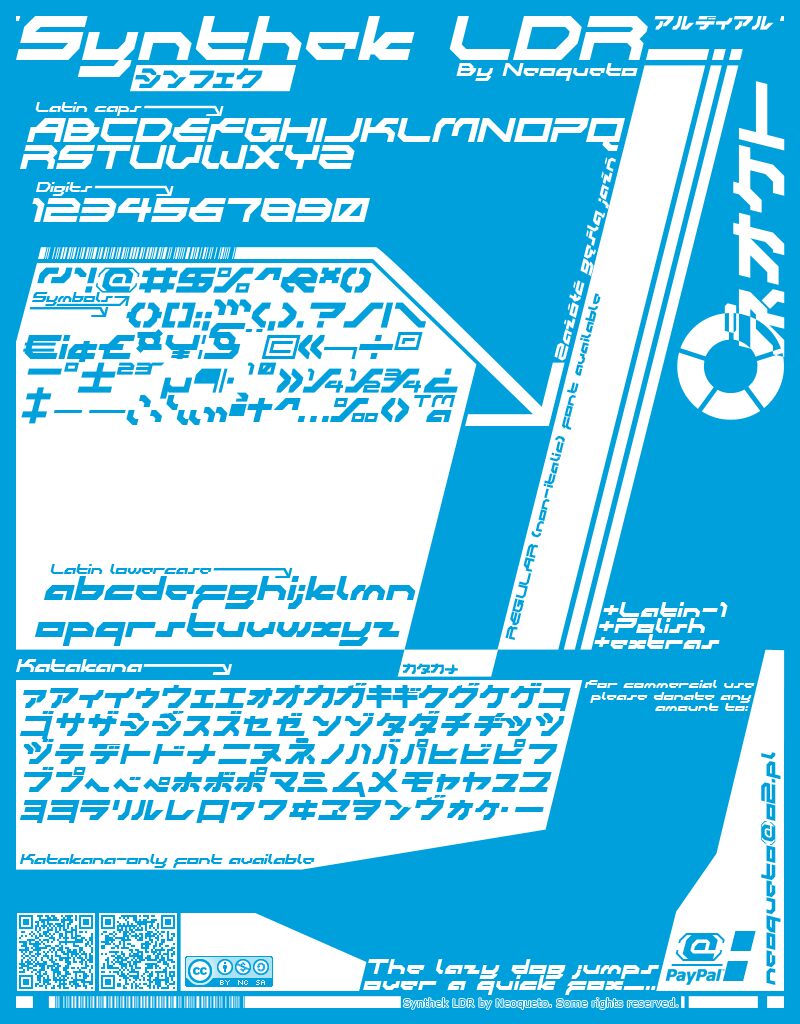
Synthek Regular LDR
Futuristic, fresh and legible - who would ask for more?
Initially created with FontStruct (http://fontstruct.com).
Three different font files contain Latin-1, katakana, Polish alphabet and some more.